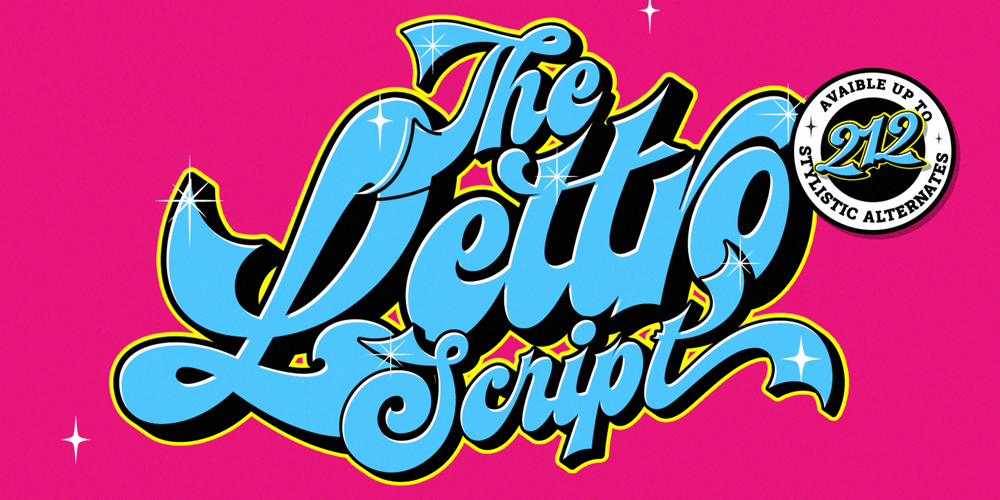
Lettro Script Font Family was designed by Ferry Ardana Putra and published by Ferry Ardana Putra. Lettro Script contains 5 styles and family package options. Make your own retro design with Lettro Font!Lettro is an exquisite bold script typeface inspired by the retro design from 70-80-ish. Lettro is created with a ton of stylistic alternates, swashes, and ligatures, and also comes with 5 total Layered fonts: Regular, Extrude, Extrude Outline, Double Extruded, and Double Extruded Outline. Perfect fitted layer to give you more contrast, more bold look of the title. Every glyph for alternates is curated for the best and possible without eliminating the characteristic of these fonts!Combine that many styles and create an awesome retro design!This retro typeface is perfect for logotypes, t-shirts, vintage badges, retro quotes, branding, packaging, posters, signboards, social media needs, etc.———Lettro features:A full set of uppercase & lowercase charactersLayered StyleNumbers & punctuationMultilingual language supportPUA Encoded CharactersOpenType Features+563 Total Glyphs+212 Stylistic Alternates+49 Ligatures+47 Swashes and more (Shiny and Spray Effect Included!)———⚠️To enable the OpenType Stylistic alternates, you need a program that supports OpenType features such as Adobe Illustrator CS, Adobe InDesign & CorelDraw X6-X7, Microsoft Word 2010, or later versions. There are additional ways to access alternates/swashes, using Character Map (Windows), Nexus Font (Windows), Font Book (Mac), or a software program such as Pop Char (for Windows and Mac).⚠️For more information about accessing alternative, you can see this link: http://adobe.ly/1m1fn4Y———🔑Important tutorial from the author:Tutorial for Mollusca font trio: https://lnkd.in/d984CQD6How to use Midway | Retro Script Font on illustrator: https://lnkd.in/eusbZd7sHow to use Midway | Retro Script Font on Photoshop: https://lnkd.in/evsYrwgsHappy Designing…😊